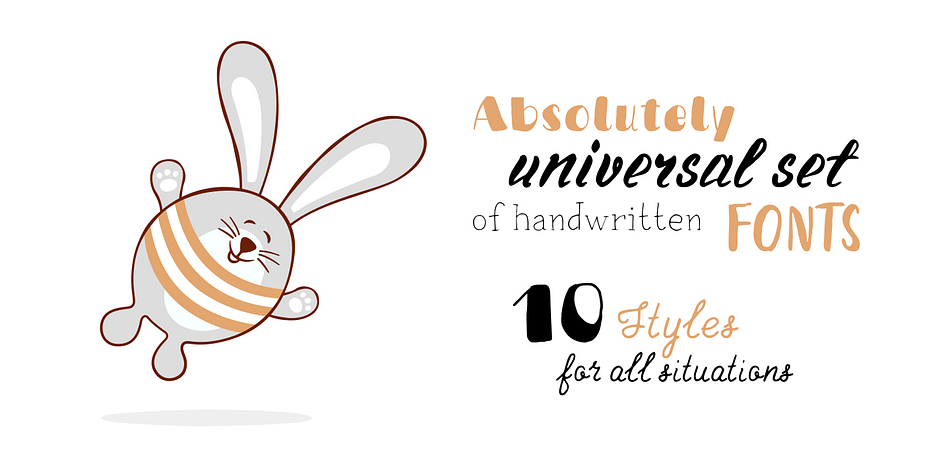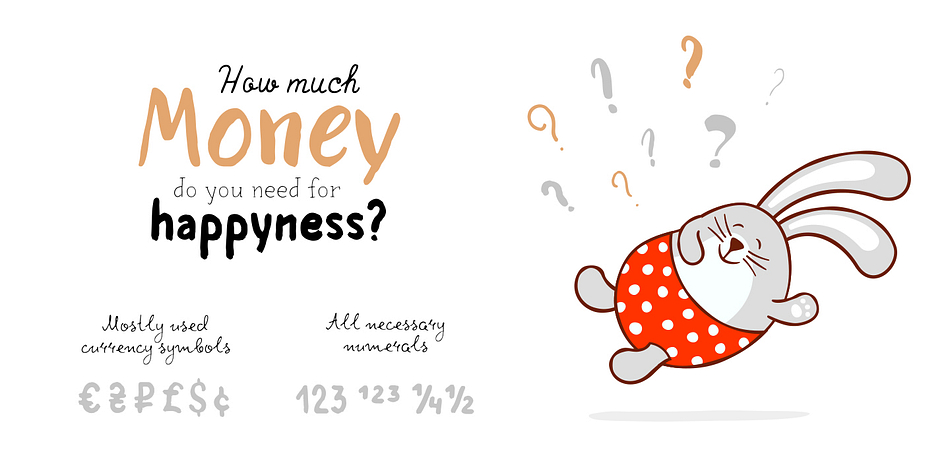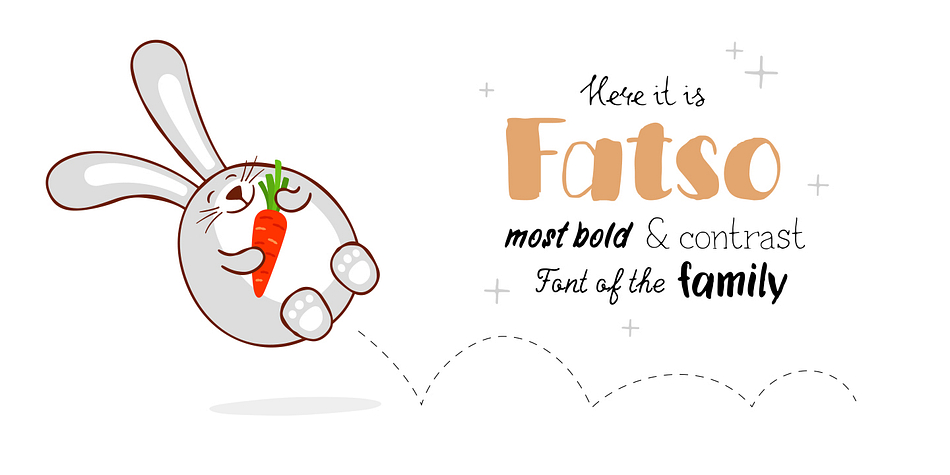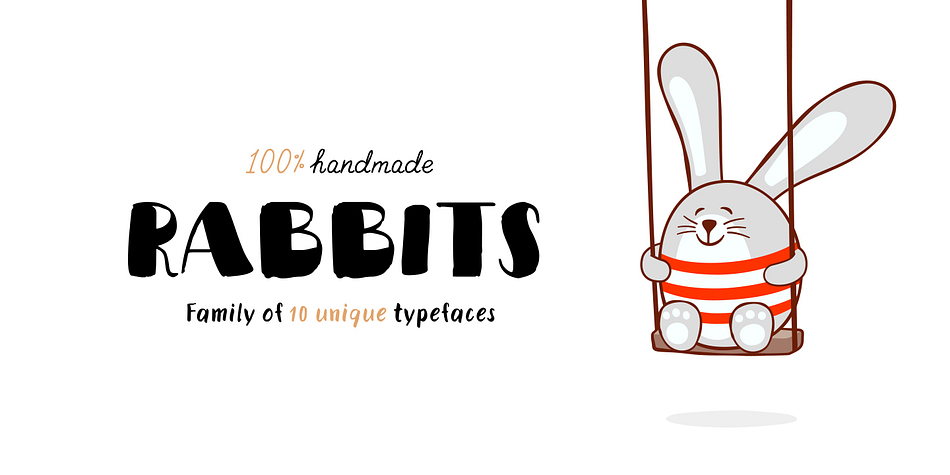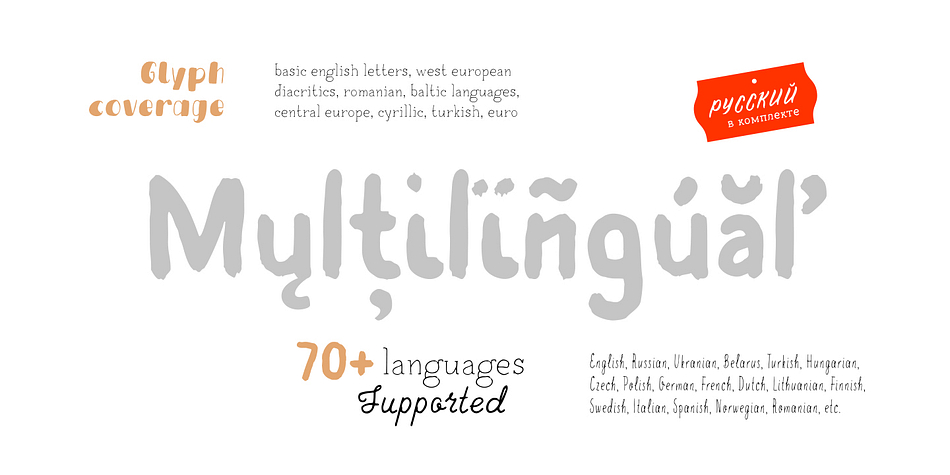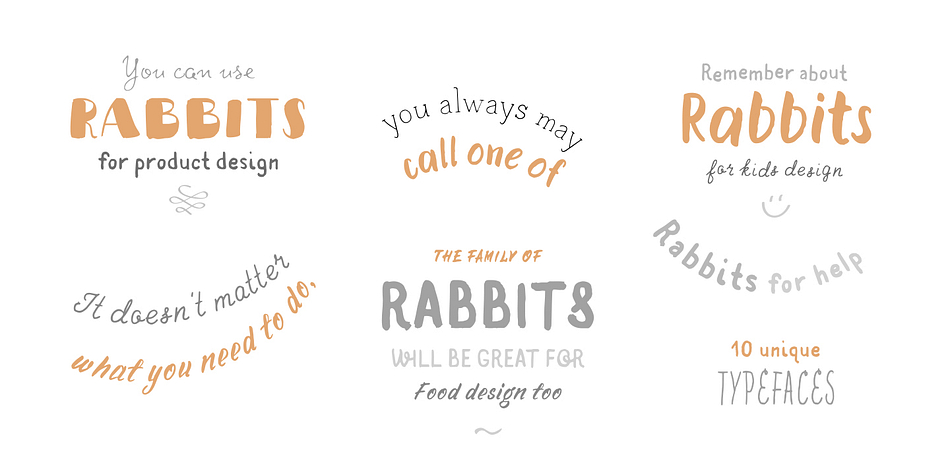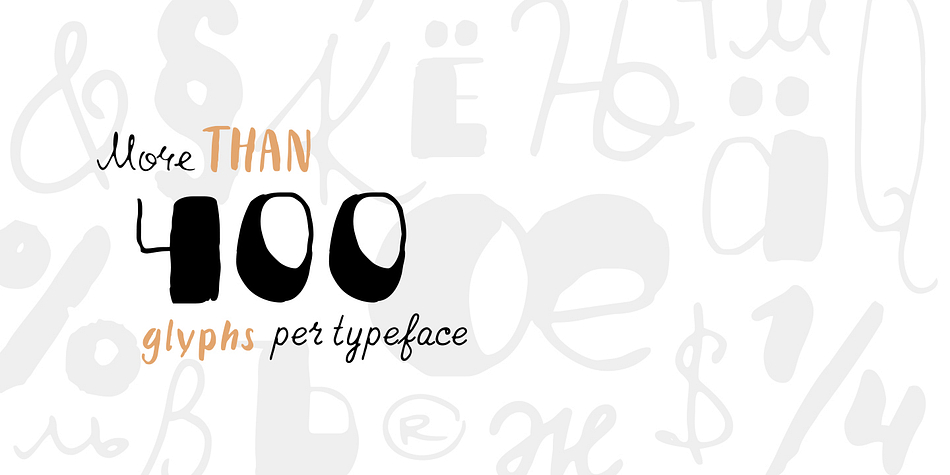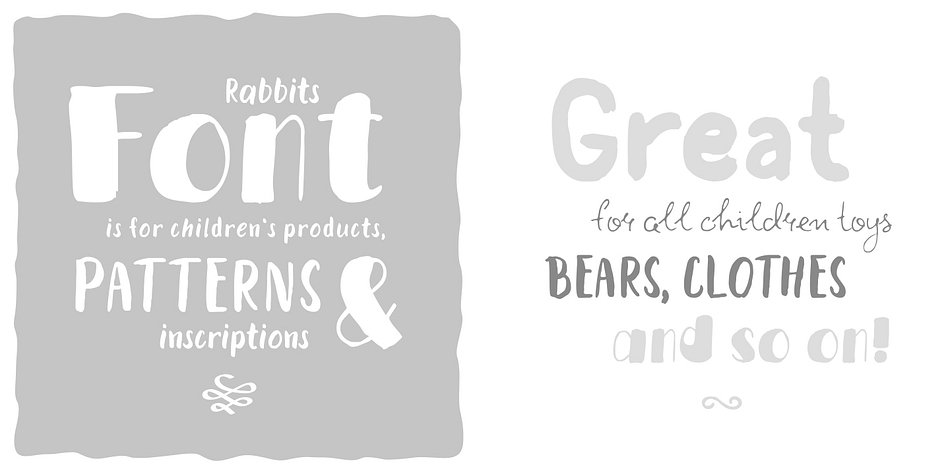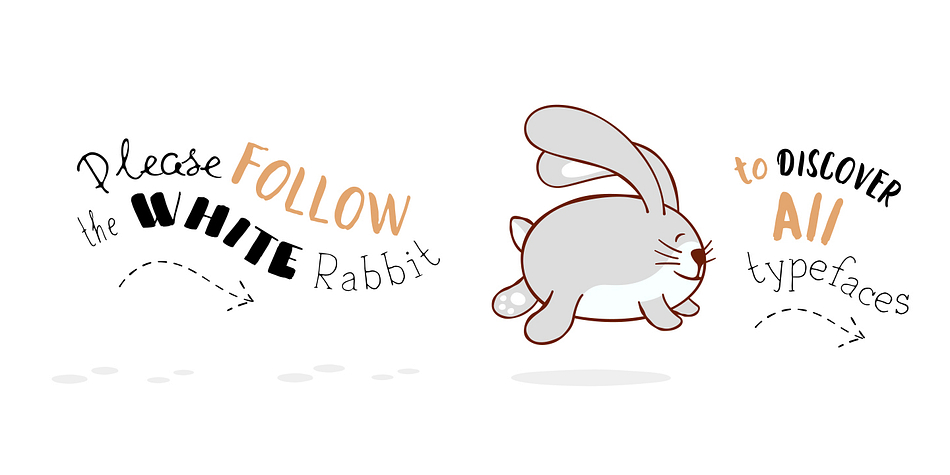
Designed by Ivan Gladkikh, Rabbits is a multiple classification font family. This typeface has ten styles and was published by Pinata.
Rabbits is a super emotional hand-written font family that unites 10 different fonts. We’ve united these fonts with one common theme - childhood. Use these fonts to create any products for kids — children’s books layouts, mobile applications for children, as well as nursery interior design.
We’ve given each rabbit a unique name. The names are arranged as the first 10 letters of the Latin alphabet: A — April, B — Bro, C — Chilli, D — Dummy, E — Elf, F — Fatso, G— Goody, H — Hyper, I — Idol, J — Junior. Each rabbit has its own character, and you’ll definitely like Rabbits because of that. We’ve used an individual writing tool for every font. All the fonts were created on paper first and then digitized.
Now, what’s your favorite rabbit?